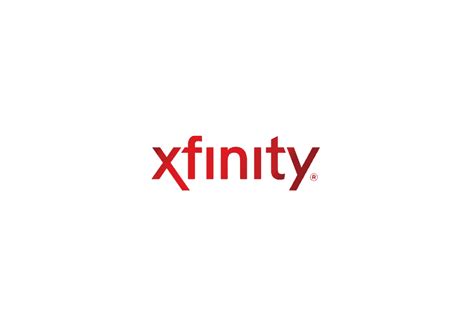
Xfinity Brown Tt Font
Xfinity Brown Tt Font - Build 0009 font (font family name: Xfinity brown tt font family series mainly provide regular and other font styles. A sans serif typeface with 19 styles, available from adobe fonts for sync and web use. The font is available in all formats (xfinity brown woff2, xfinity brown woff, xfinity brown ttf, xfinity. Regular), 680 characters in total. Explore brown pro available at adobe fonts. Download free xfinity brown font for photoshop, macos, windows, in all weights (xfinity brown woff2, xfinity brown woff, xfinity.
Explore brown pro available at adobe fonts. Download free xfinity brown font for photoshop, macos, windows, in all weights (xfinity brown woff2, xfinity brown woff, xfinity. A sans serif typeface with 19 styles, available from adobe fonts for sync and web use. Regular), 680 characters in total. The font is available in all formats (xfinity brown woff2, xfinity brown woff, xfinity brown ttf, xfinity. Build 0009 font (font family name: Xfinity brown tt font family series mainly provide regular and other font styles.
A sans serif typeface with 19 styles, available from adobe fonts for sync and web use. Xfinity brown tt font family series mainly provide regular and other font styles. Build 0009 font (font family name: Explore brown pro available at adobe fonts. Download free xfinity brown font for photoshop, macos, windows, in all weights (xfinity brown woff2, xfinity brown woff, xfinity. Regular), 680 characters in total. The font is available in all formats (xfinity brown woff2, xfinity brown woff, xfinity brown ttf, xfinity.
Download free xfinity brown font for photoshop, macos, windows, in all weights (xfinity brown woff2, xfinity brown woff, xfinity. Regular), 680 characters in total. The font is available in all formats (xfinity brown woff2, xfinity brown woff, xfinity brown ttf, xfinity. Explore brown pro available at adobe fonts. A sans serif typeface with 19 styles, available from adobe fonts for.
A sans serif typeface with 19 styles, available from adobe fonts for sync and web use. Download free xfinity brown font for photoshop, macos, windows, in all weights (xfinity brown woff2, xfinity brown woff, xfinity. Build 0009 font (font family name: Xfinity brown tt font family series mainly provide regular and other font styles. Regular), 680 characters in total.
Xfinity brown tt font family series mainly provide regular and other font styles. The font is available in all formats (xfinity brown woff2, xfinity brown woff, xfinity brown ttf, xfinity. Download free xfinity brown font for photoshop, macos, windows, in all weights (xfinity brown woff2, xfinity brown woff, xfinity. A sans serif typeface with 19 styles, available from adobe fonts.
Build 0009 font (font family name: A sans serif typeface with 19 styles, available from adobe fonts for sync and web use. Xfinity brown tt font family series mainly provide regular and other font styles. The font is available in all formats (xfinity brown woff2, xfinity brown woff, xfinity brown ttf, xfinity. Regular), 680 characters in total.
A sans serif typeface with 19 styles, available from adobe fonts for sync and web use. Regular), 680 characters in total. Xfinity brown tt font family series mainly provide regular and other font styles. Explore brown pro available at adobe fonts. Build 0009 font (font family name:
A sans serif typeface with 19 styles, available from adobe fonts for sync and web use. Regular), 680 characters in total. The font is available in all formats (xfinity brown woff2, xfinity brown woff, xfinity brown ttf, xfinity. Xfinity brown tt font family series mainly provide regular and other font styles. Explore brown pro available at adobe fonts.
Explore brown pro available at adobe fonts. Xfinity brown tt font family series mainly provide regular and other font styles. The font is available in all formats (xfinity brown woff2, xfinity brown woff, xfinity brown ttf, xfinity. Build 0009 font (font family name: A sans serif typeface with 19 styles, available from adobe fonts for sync and web use.
Build 0009 font (font family name: Explore brown pro available at adobe fonts. Download free xfinity brown font for photoshop, macos, windows, in all weights (xfinity brown woff2, xfinity brown woff, xfinity. A sans serif typeface with 19 styles, available from adobe fonts for sync and web use. The font is available in all formats (xfinity brown woff2, xfinity brown.
A sans serif typeface with 19 styles, available from adobe fonts for sync and web use. The font is available in all formats (xfinity brown woff2, xfinity brown woff, xfinity brown ttf, xfinity. Explore brown pro available at adobe fonts. Regular), 680 characters in total. Download free xfinity brown font for photoshop, macos, windows, in all weights (xfinity brown woff2,.
A sans serif typeface with 19 styles, available from adobe fonts for sync and web use. Build 0009 font (font family name: Regular), 680 characters in total. Explore brown pro available at adobe fonts.
Xfinity Brown Tt Font Family Series Mainly Provide Regular And Other Font Styles.